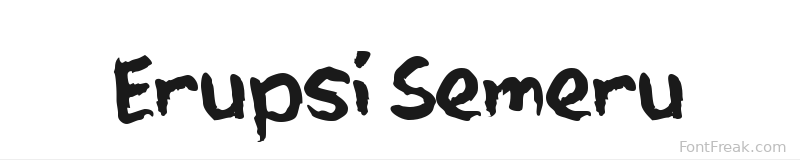
Erupsi Semeru
Erupsi Semeru is a captivating display font designed by Wahyu Eka Prasetya, characterized by its unique handwritten style that exudes creativity and spontaneity. The font features a bold stroke weight with a textured appearance, giving it an organic, dynamic feel. The contrast in the letterforms enhances its visual appeal, while the slightly irregular spacing adds a touch of authenticity, reminiscent of hand-drawn typography. Its playful yet impactful design makes it an excellent choice for a variety of creative projects.
This font is particularly well-suited for use in wedding invitations, where its whimsical character can add a personal touch. It also shines in movie posters, where the unique style can capture attention and evoke emotions. Restaurant menus can benefit from Erupsi Semeru's charming aesthetic, making them more inviting and engaging for customers. Additionally, it works beautifully for branding materials, allowing small business owners to convey a friendly and approachable image. Content creators will find this font beneficial for social media graphics, where a distinctive look can help stand out in crowded feeds.
What truly sets the Erupsi Semeru font apart is its ability to blend creativity with functionality. Its artistic flair captures attention while remaining versatile enough for practical applications. For anyone seeking a distinctive, expressive typeface, the Erupsi Semeru font free download offers an exciting opportunity to enhance visual communication in a memorable way.